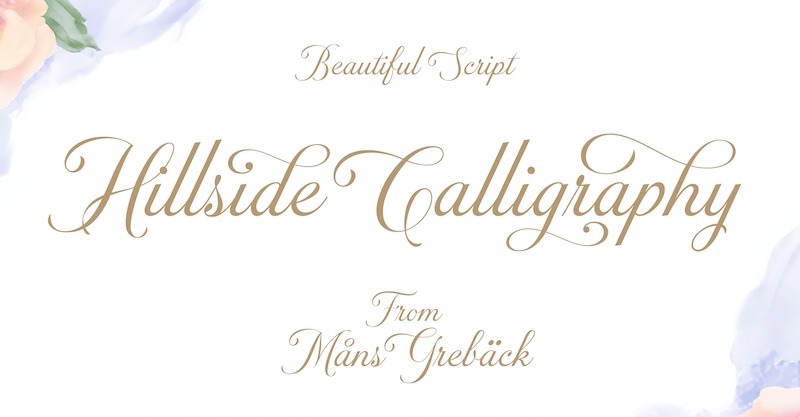
Hillside Calligraphy Font exudes romantic charm, drawing inspiration from traditional penmanship and the graceful elegance of vintage wedding stationery. With its tall, flowing letterforms and refined curves, this script typeface captures the beauty of formal handwriting while maintaining excellent readability. Each stroke feels intentional and graceful, making it a perfect choice for projects that seek to convey emotion, elegance, or timeless flair.
The uppercase characters feature lavish swashes and bold loops, bringing a ceremonial, expressive tone to headings and titles. In contrast, the lowercase letters offer a gentler rhythm, composed of smooth, sweeping lines that are well-suited for both large displays and smaller text applications. Whether used on wedding invitations, personal letters, keepsakes, or branding materials, Hillside Calligraphy adds a sophisticated, handcrafted touch to any visual composition.
Designed with advanced OpenType capabilities, the font includes an array of stylistic alternates, contextual ligatures, and customization features to ensure creative freedom and typographic finesse. It offers broad language support for Latin-based alphabets, covering regions from Northern Europe to Southeast Asia. With complete punctuation, numerals, and special characters included, Hillside Calligraphy is a well-rounded typeface built to meet the demands of professional and expressive design work alike.